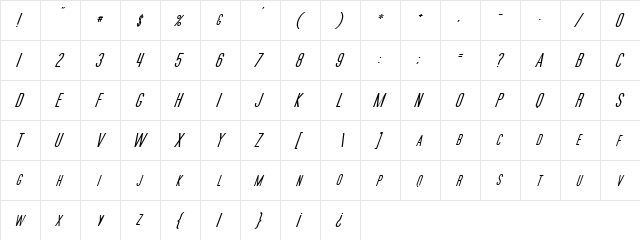
Movie Poster Italic
Design Context for Movie Poster Typeface
Movie Poster is a composed and adaptable typeface that performs quietly and consistently across a wide range of design contexts. The dynamic lean of this cut emphasises speed and emphasis in any layout.